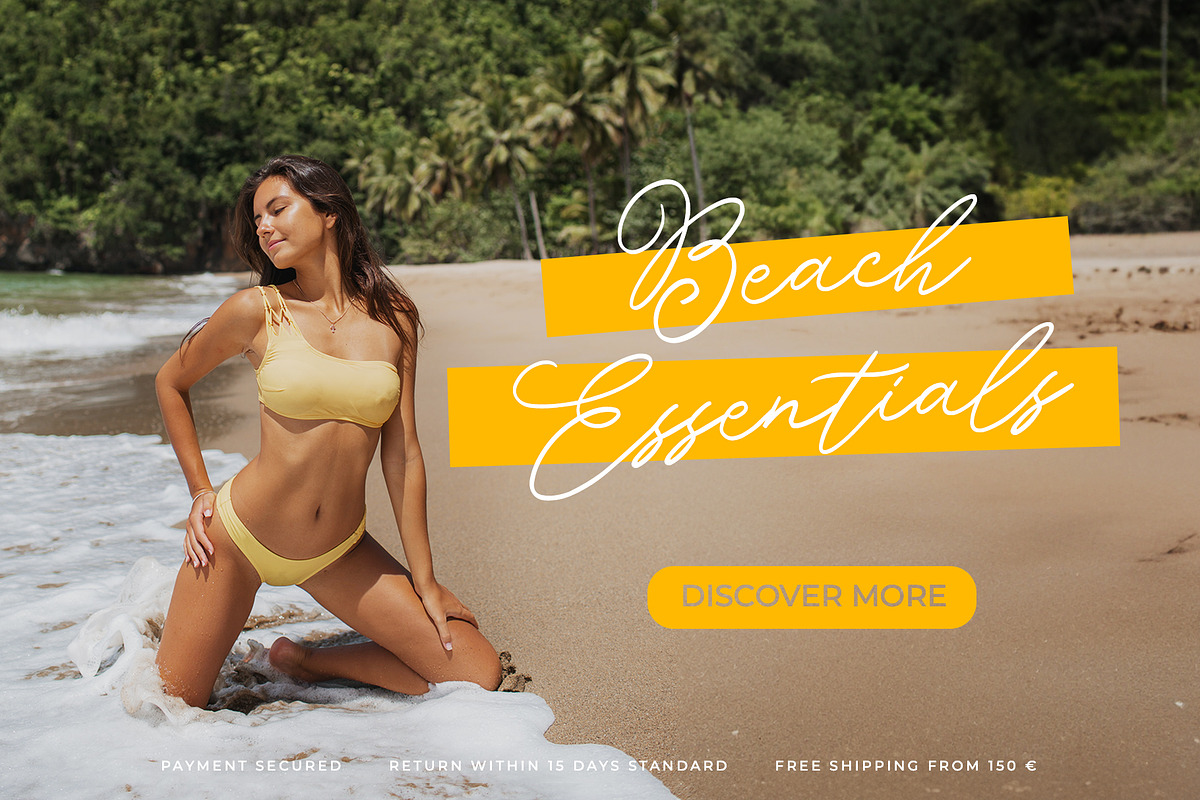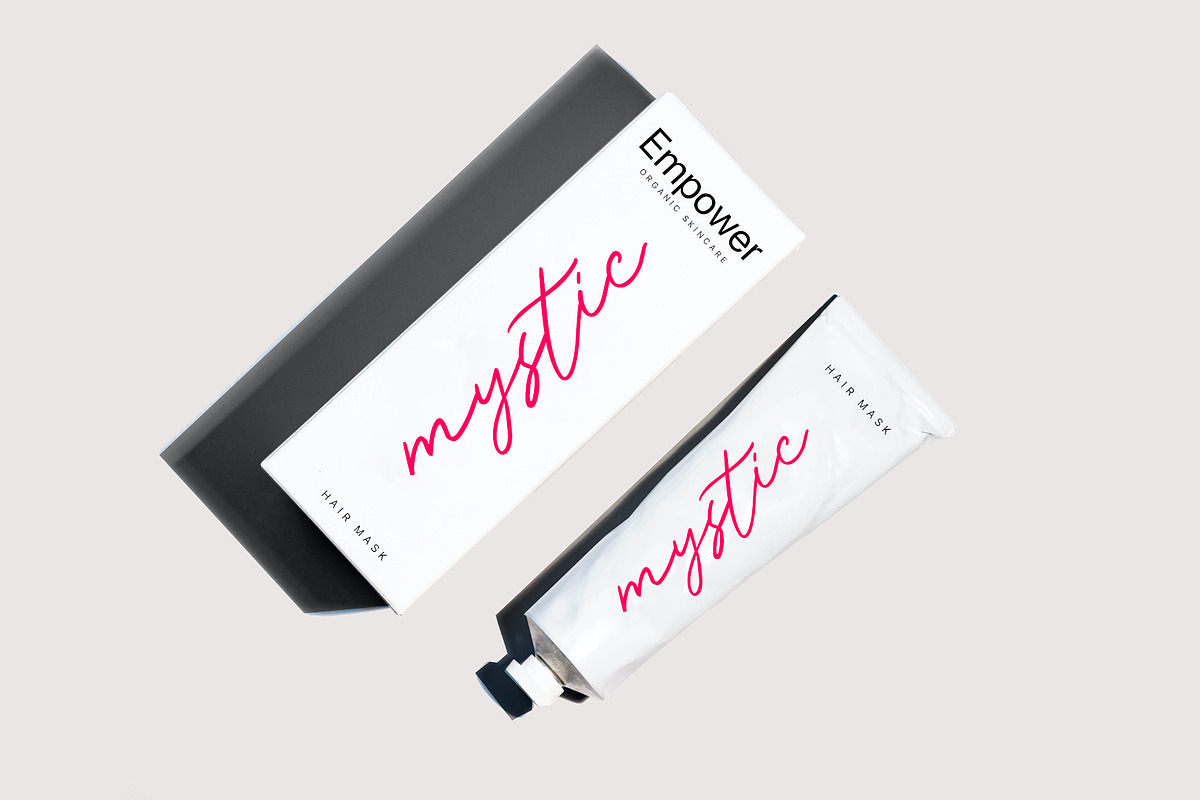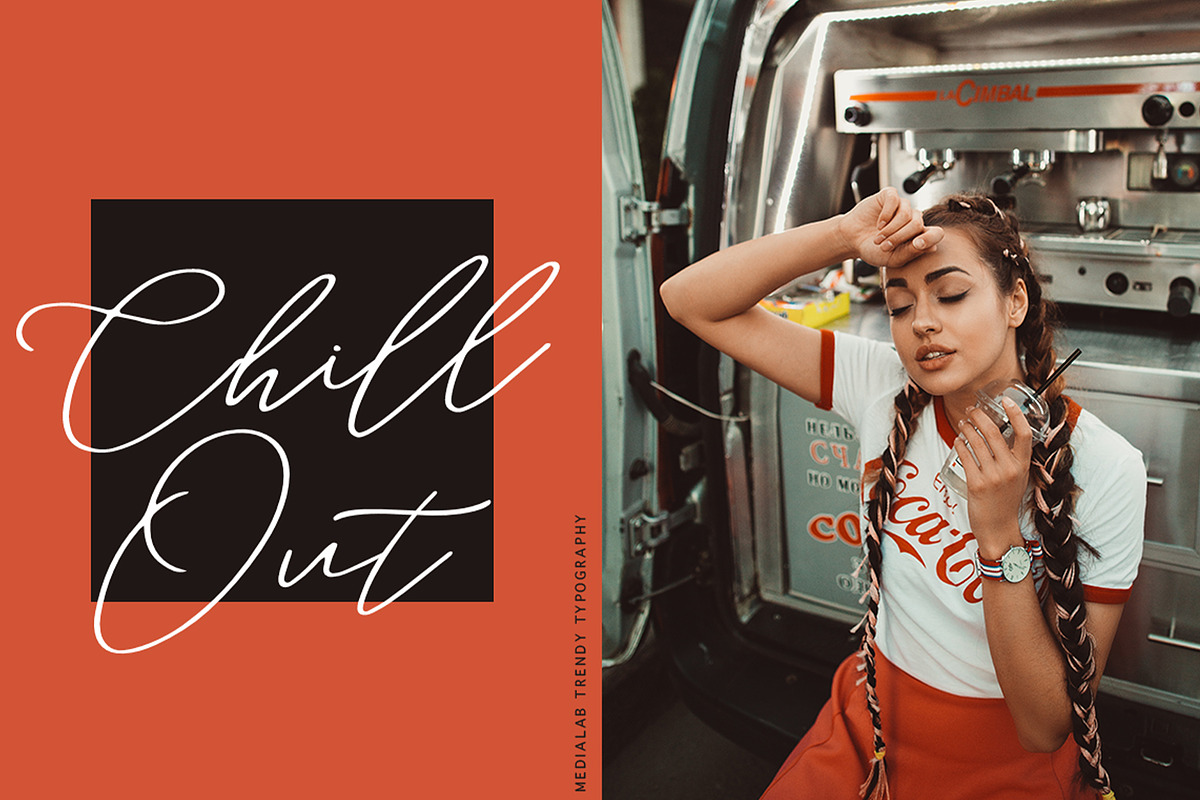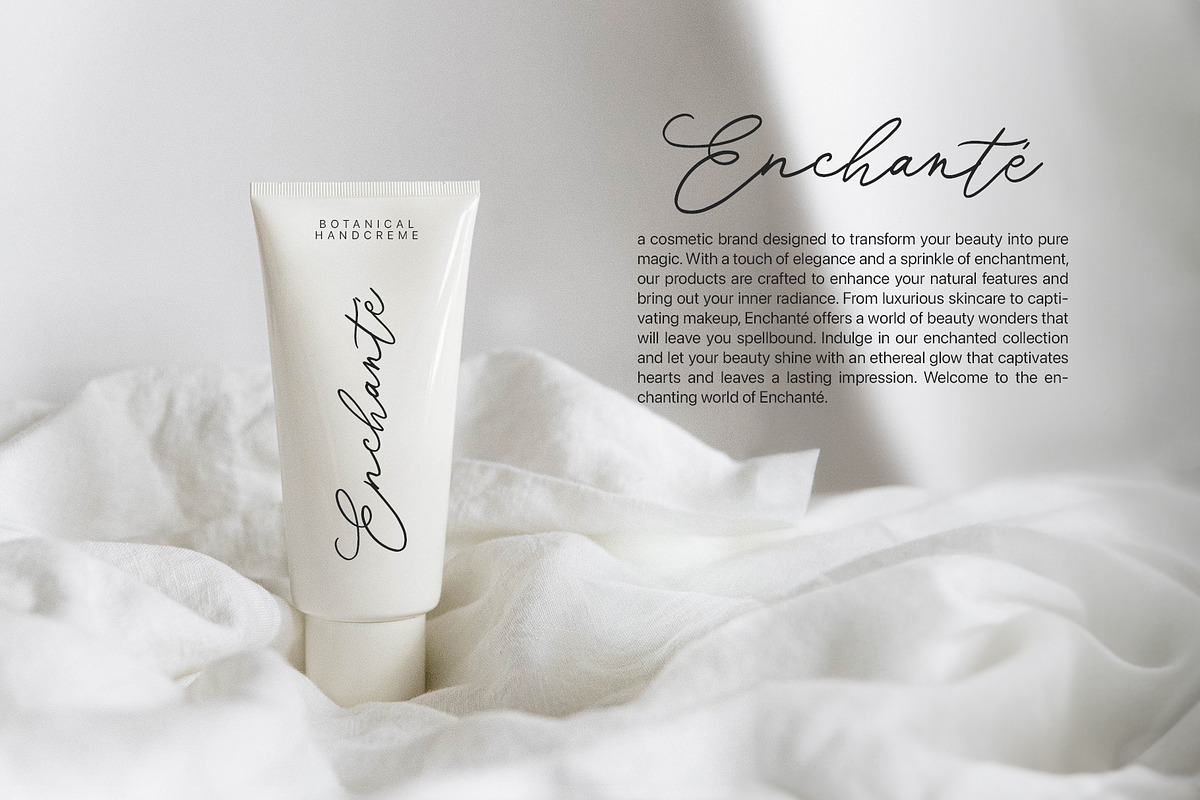
Warm Script handwritten font
Big update - added support for all European languages
This modern calligraphy script has been attentively written, with gentle curves to produce a font thats completely distinctive and original. It contains a full set of lower & uppercase letters, a large range of punctuation, numerals, and multilingual support. Perfect for adding a elegant and unique touch to your lettering projects and branding
Also with their help, you can create a Wedding lettering or beautiful frame for your home. Or just use for your small business, book covers, stationery, marketing, magazines and more.
- It contains a full set of lower & uppercase letters, a large range of punctuation, numerals, and multilingual support.
Warm Script handwritten font by supfonts fits naturally into Branding, posters, packaging, typography.